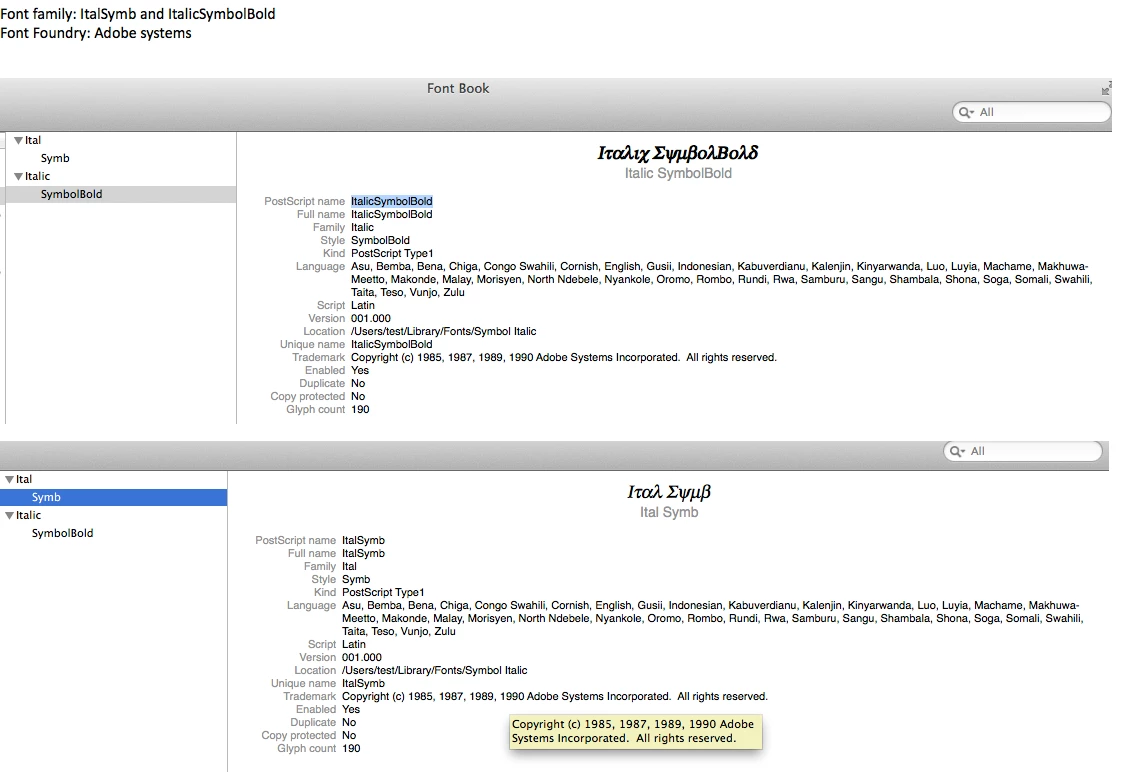
There were Adobe Postscipt Type 1 versions for ItalSymb and ItalicSymbolBold back around 1990. Does anyone know why these Symbol font variations weren't released in the Adobe Font Folio 11 library?
Dov, so the symbol variations would not be legal and would not be covered under the Adobe Font Folio 11 library EULA and therefore should not be used when producing a commercial product? Is that a correct assumption?
If you are referring to the "Symbol" font which is part of the core font set of original PostScript then this font came in one style only, that being "Regular" (Windows PS-Type-1 file names: sy______.pfb sy______.pfm or TrueType-version: symbol.ttf).
By applying italic or bold style linking in your application you may have accidentally created a false italic or bold style (font fauxing). True italic, bold or bold italic versions of the "Symbol" font were not released.
Yes I thought that too but from the screengrab below it looks like there were other variations back in 1990 (as per the copyright date).